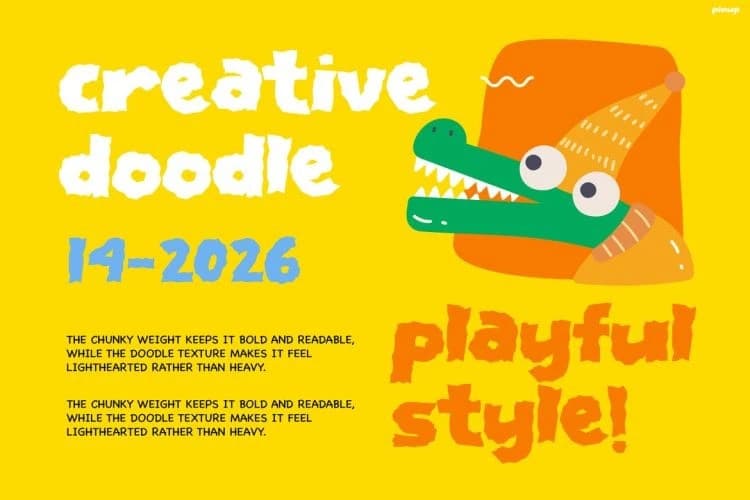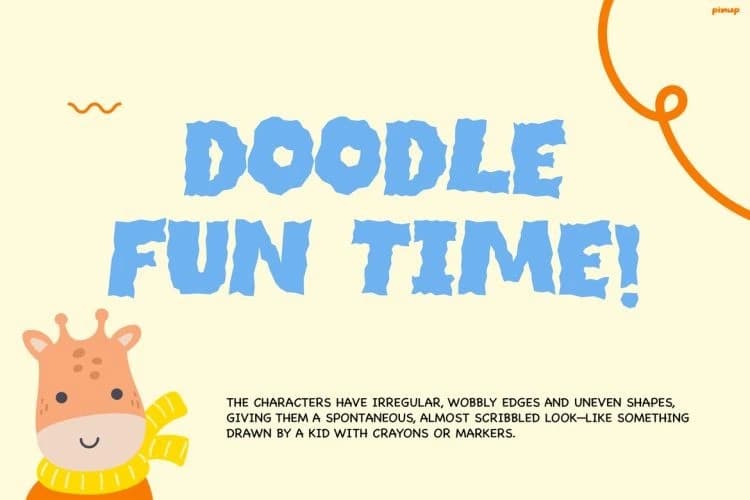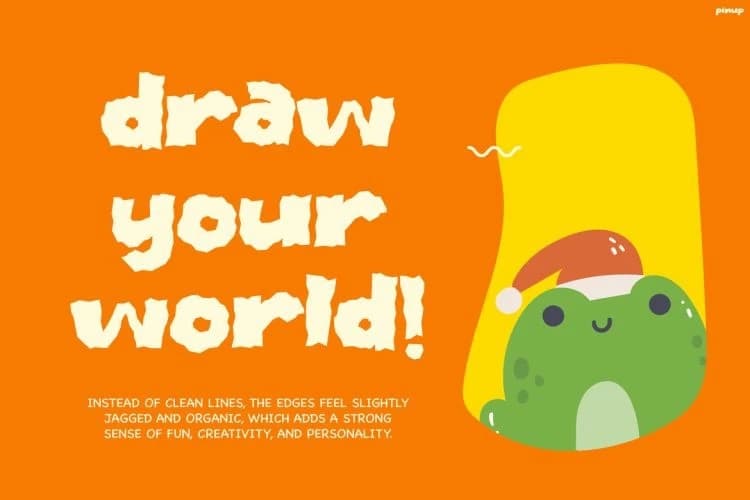
Pinup Display Font
Pinup Display Font bursts with cheerful energy, combining chunky hand-drawn shapes and soft irregular edges that feel lively and expressive. Its bold, bubbly style instantly grabs attention, while the imperfect strokes add a natural, doodle-like charm.